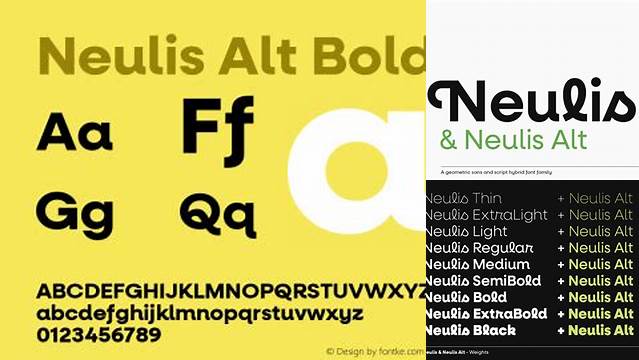
Hey guys! Looking for a font that's both modern and bold? You've landed in the right place. Let's dive into everything you need to know about Neulis Alt Bold, a fantastic free font that can elevate your design projects.
What is Neulis Alt Bold?
Neulis Alt Bold is a typeface that combines contemporary design with a strong, assertive presence. It's characterized by clean lines, a geometric structure, and a bold weight that makes it incredibly versatile for various applications. Whether you're working on branding, web design, or print materials, Neulis Alt Bold can add a touch of sophistication and impact.
Why Choose Neulis Alt Bold?
Choosing the right font is crucial for conveying the right message and aesthetic. Neulis Alt Bold stands out for its readability and visual appeal. Its bold weight ensures that text is easily legible, even at smaller sizes, while its modern design adds a contemporary flair. Plus, being free makes it an accessible option for designers of all levels.
Neulis Alt Bold: A Closer Look
Let's take a closer look at what makes Neulis Alt Bold a great choice. Its distinct letterforms, balanced proportions, and overall aesthetic contribute to its versatility and appeal. It's designed to work well in headlines, body text, and everything in between, making it a valuable addition to your font library.
1. Key Features of Neulis Alt Bold
Neulis Alt Bold is a font that boasts several key features making it a standout choice for designers and creatives. Its strong and assertive appearance is immediately noticeable, providing a sense of confidence and modernity to any project. The font features clean lines and geometric shapes, contributing to its overall contemporary aesthetic. These elements combined make Neulis Alt Bold a versatile option suitable for a wide array of design applications. From branding to editorial design, this font can enhance the visual appeal and readability of your work. Furthermore, the font's consistent weight ensures that it remains legible across different sizes and resolutions, making it ideal for both print and digital media. One of the most appealing aspects of Neulis Alt Bold is its availability as a free font. This means designers can access a high-quality typeface without incurring any costs, which is particularly beneficial for those working on a budget or just starting out in the field. The free font aspect opens up opportunities for experimentation and allows designers to explore different design concepts without financial constraints. Additionally, the font's bold weight is perfect for headlines and titles, drawing attention and creating a strong visual hierarchy. Its geometric structure ensures clarity and precision, making it suitable for projects that require a modern and professional look. Designers can use Neulis Alt Bold to create logos, posters, websites, and various marketing materials. Its versatility and bold characteristics make it an indispensable tool for creating impactful designs. The font is designed to be user-friendly, ensuring a smooth and efficient design process, regardless of the designer's skill level. Ultimately, the combination of its bold style, geometric precision, and free font availability makes Neulis Alt Bold an excellent choice for designers seeking a contemporary and impactful typeface.
2. Neulis Alt Bold for Branding
When it comes to branding, Neulis Alt Bold can be a game-changer. A strong brand identity relies on consistent and impactful visuals, and the font you choose plays a significant role in conveying your brand's message. Neulis Alt Bold offers a modern and confident look that can help your brand stand out. Its bold weight and clean lines make it perfect for logos, business cards, and other essential branding materials. Using Neulis Alt Bold in your logo ensures that your brand name is easily recognizable and memorable. The font's geometric structure conveys a sense of professionalism and modernity, which can be particularly effective for tech companies, startups, and businesses aiming for a contemporary image. Furthermore, the font's versatility allows it to be used in various branding contexts, from website headers to social media graphics. Consistency in font choice is crucial for building a strong brand identity. By using Neulis Alt Bold across all your branding materials, you create a cohesive and recognizable look that reinforces your brand's message. The font's bold appearance also helps to grab attention, making it ideal for marketing campaigns and advertising materials. Whether you're designing a new website or revamping your existing branding, Neulis Alt Bold can provide a fresh and modern aesthetic. Its readability ensures that your brand message is clear and easily understood, while its bold weight adds a touch of sophistication and impact. Remember, a well-chosen font can significantly enhance your brand's overall appeal and effectiveness. Neulis Alt Bold, with its modern design and strong presence, is an excellent choice for creating a lasting impression. By integrating this free font into your branding strategy, you can elevate your brand's visual identity and connect with your target audience more effectively. Ultimately, Neulis Alt Bold provides a cost-effective and visually appealing solution for creating a strong and memorable brand.
3. Web Design Applications
In the realm of web design, Neulis Alt Bold proves to be an invaluable asset. The font's modern and bold characteristics make it perfect for creating engaging and visually appealing websites. A well-chosen font can significantly enhance the user experience, and Neulis Alt Bold excels in this regard. Its clear and geometric design ensures readability, even on smaller screens, making it ideal for responsive web design. When used in headlines and titles, Neulis Alt Bold can immediately grab the visitor's attention, guiding them through the content. Its bold weight creates a strong visual hierarchy, helping to highlight important information and improve navigation. Moreover, the font's contemporary aesthetic can give your website a fresh and modern look, which is crucial for attracting and retaining users. The versatility of Neulis Alt Bold allows it to be used in various sections of your website, from the header and navigation menu to the body text and call-to-action buttons. Its consistency ensures a cohesive and professional design, reinforcing your brand's identity and message. Furthermore, the font's legibility makes it suitable for long-form content, ensuring that visitors can easily read and understand your message. Whether you're designing a blog, an e-commerce site, or a portfolio, Neulis Alt Bold can help you create a visually appealing and user-friendly website. Its modern design and bold presence will make your content stand out, while its readability ensures a positive user experience. With Neulis Alt Bold, you can create a website that not only looks great but also effectively communicates your message and engages your audience. By leveraging this free font, you can enhance your web design projects without incurring any costs. This makes Neulis Alt Bold an excellent choice for designers looking to create impactful and visually stunning websites on a budget.
4. Print Materials with Neulis Alt Bold
Neulis Alt Bold is an exceptional choice for various print materials. Its bold and clear design ensures that your message is conveyed effectively and professionally. When it comes to print, readability is paramount, and Neulis Alt Bold excels in this area. The font's geometric structure and consistent weight make it easy to read, even at smaller sizes, ensuring that your print materials are accessible and engaging. Whether you're designing brochures, posters, flyers, or business cards, Neulis Alt Bold can add a touch of sophistication and modernity. Its bold appearance is perfect for headlines and titles, grabbing attention and creating a strong visual impact. The font's versatility also allows it to be used in body text, ensuring that your message is clear and easily understood. Using Neulis Alt Bold in your print materials can help you create a cohesive and professional look that reinforces your brand's identity. Its modern aesthetic is suitable for a wide range of industries, from technology and finance to creative arts and education. Moreover, the font's bold weight ensures that your print materials stand out, even in crowded environments. Whether you're promoting a product, advertising an event, or simply conveying information, Neulis Alt Bold can help you achieve your goals. Its readability and visual appeal make it an excellent choice for any print project. By incorporating this free font into your design workflow, you can create impactful and professional print materials without incurring any costs. Neulis Alt Bold provides a cost-effective solution for designers looking to elevate their print designs and make a lasting impression. Ultimately, the combination of its bold style, geometric precision, and free font availability makes Neulis Alt Bold an indispensable tool for creating stunning print materials.